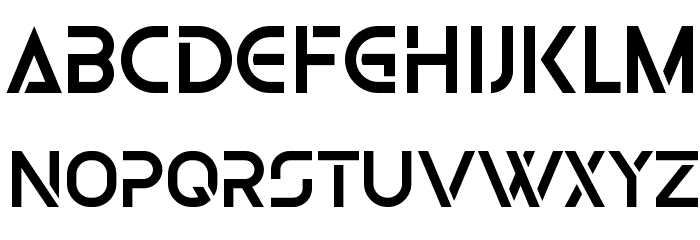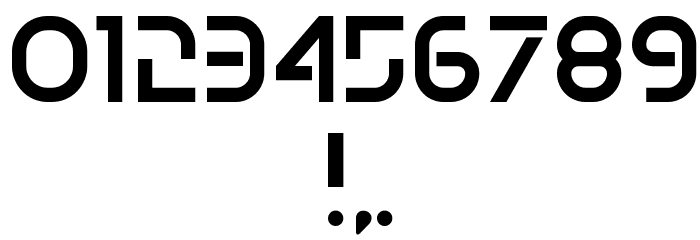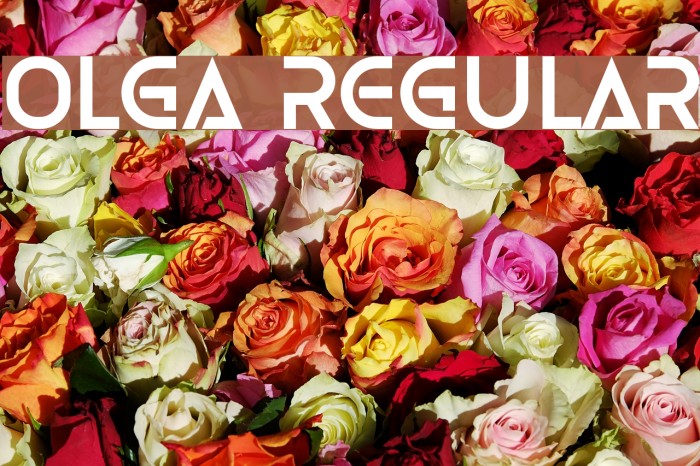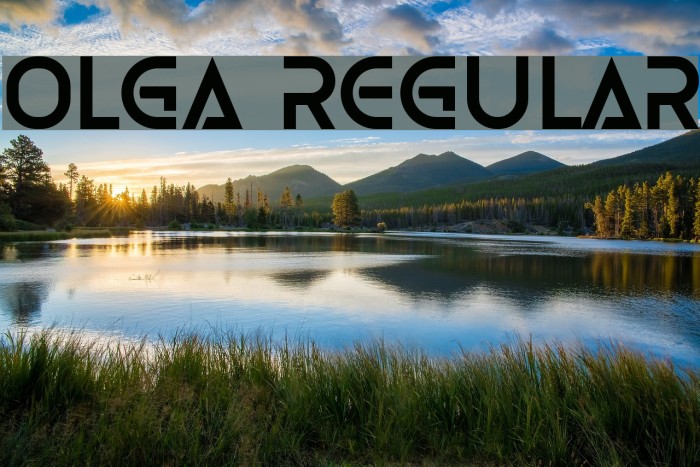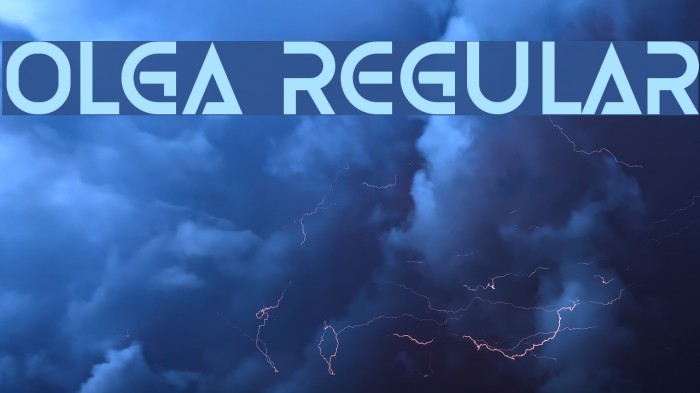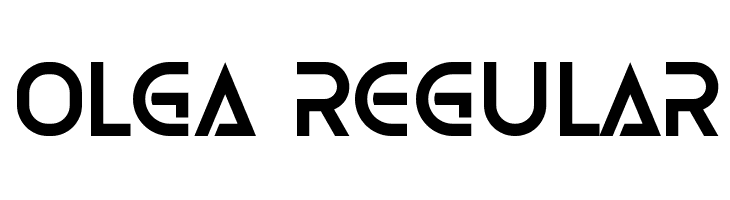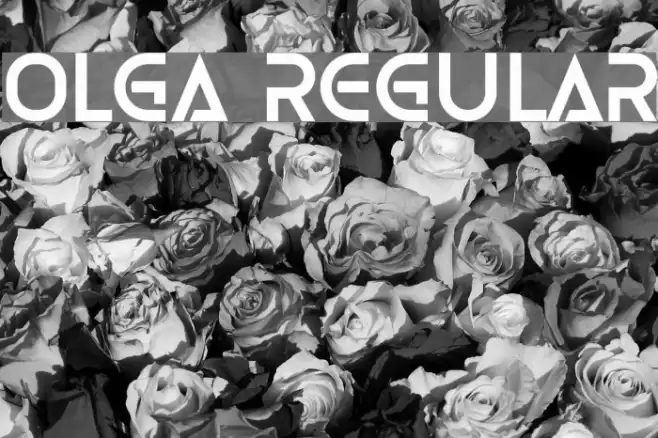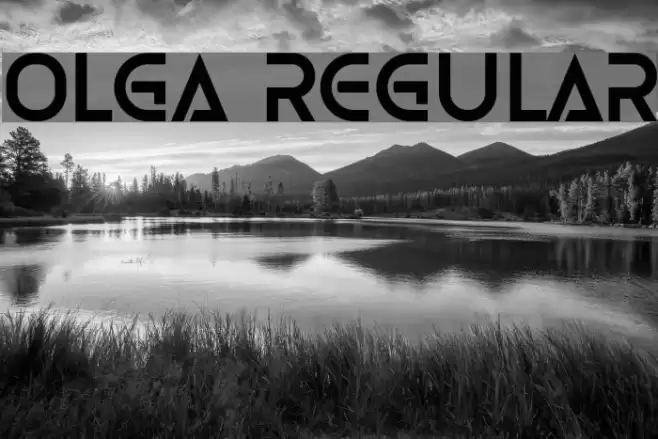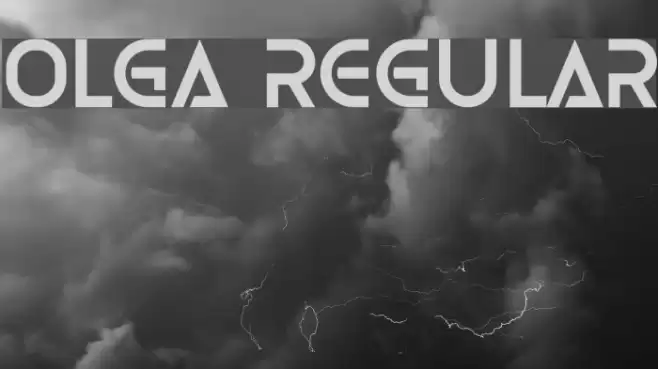
Olga Regular Font
This font features a bold, geometric design with a futuristic flair. The characters are constructed with sharp angles and clean lines, creating a modern and dynamic appearance. The uppercase letters are particularly striking, with unique cutouts and shapes that add a distinctive touch. The numbers and special characters maintain this aesthetic, ensuring consistency across all glyphs. The overall style is both eye-catching and versatile, suitable for a variety of design applications.
A bold, geometric font with a futuristic and dynamic style.
- Proposed Projects: Ideal for branding, posters, and digital interfaces where a modern and bold statement is needed.